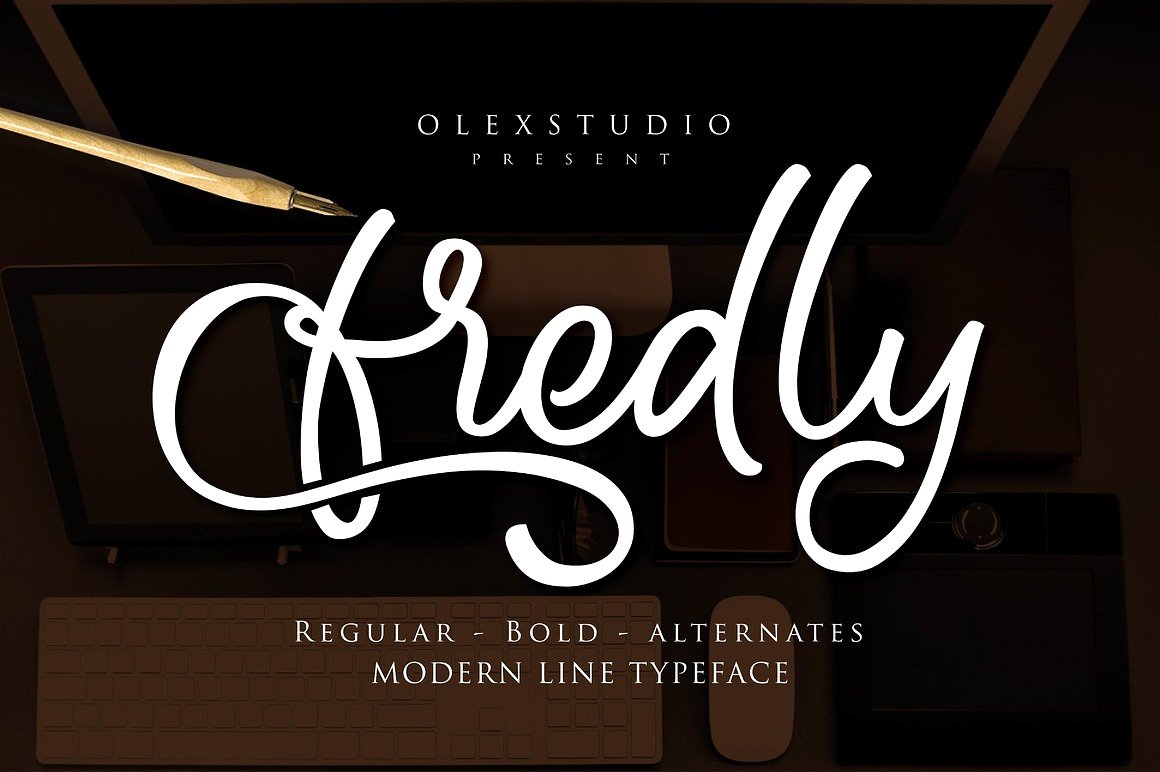
Fredly Script
Fredly Script Font
Fredly is a beautiful Script, It suitable for wedding invitation, greeting cards, T-Shirt, Logo or any design that you create.comes with a complete set of standard characters, Alternates, stylistic Alternates, Punctuation & international glyphs
Fredly Script